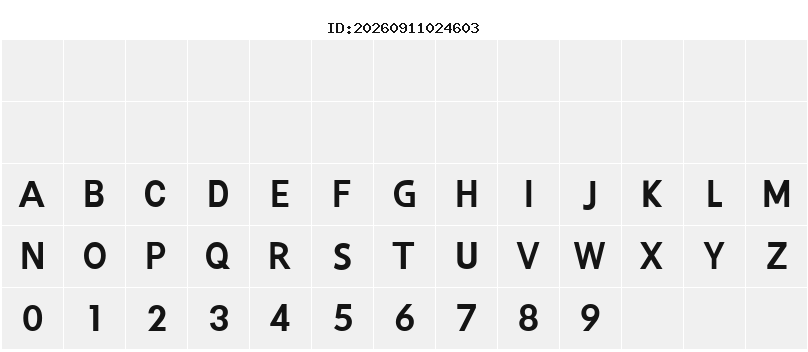
Vertexio Preview
• Font Name: Vertexio
• Full Font Name: Vertexio
• Designer: Dhvanil Patel
About Vertexio.ttf
Vertexio.ttf is a modern, elegant sans-serif font designed for ultimate readability and visual harmony. Perfect for branding, headlines, web design, and print materials.